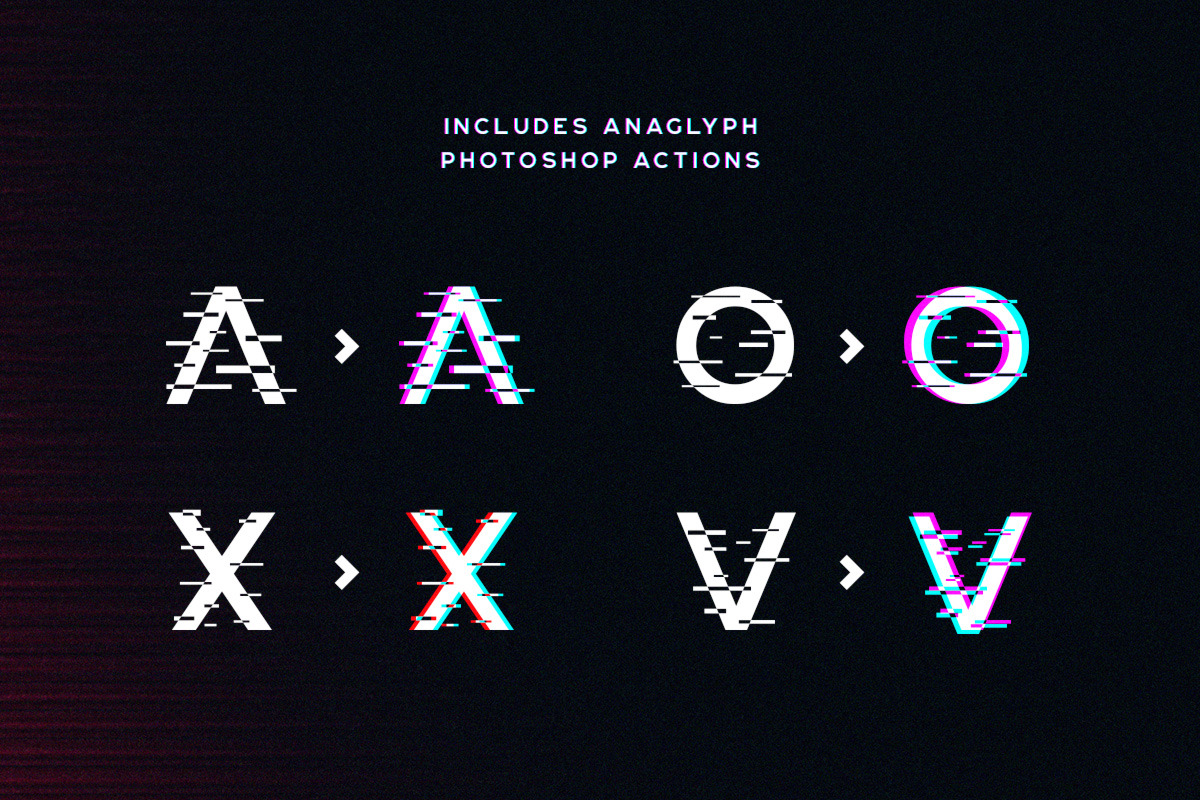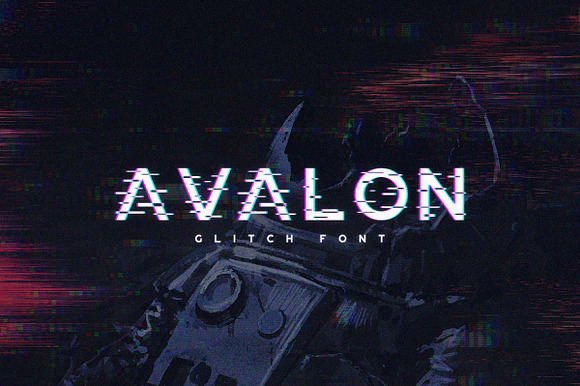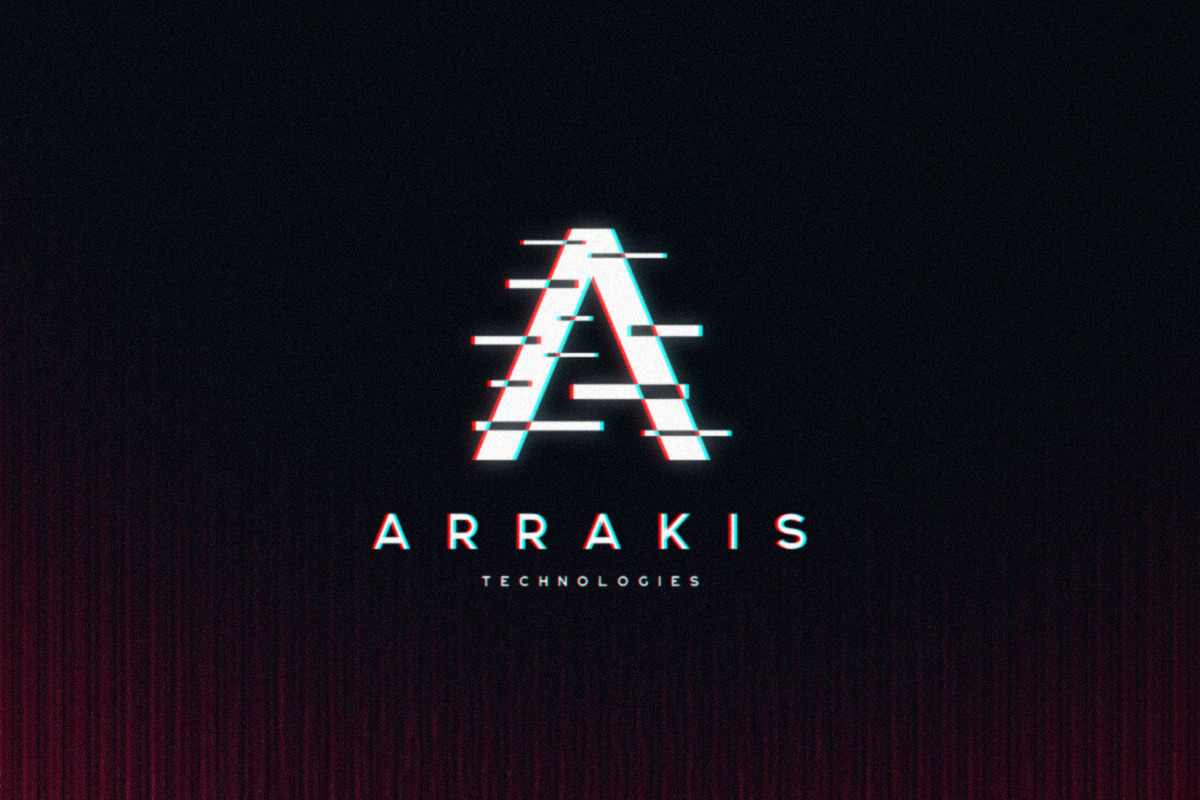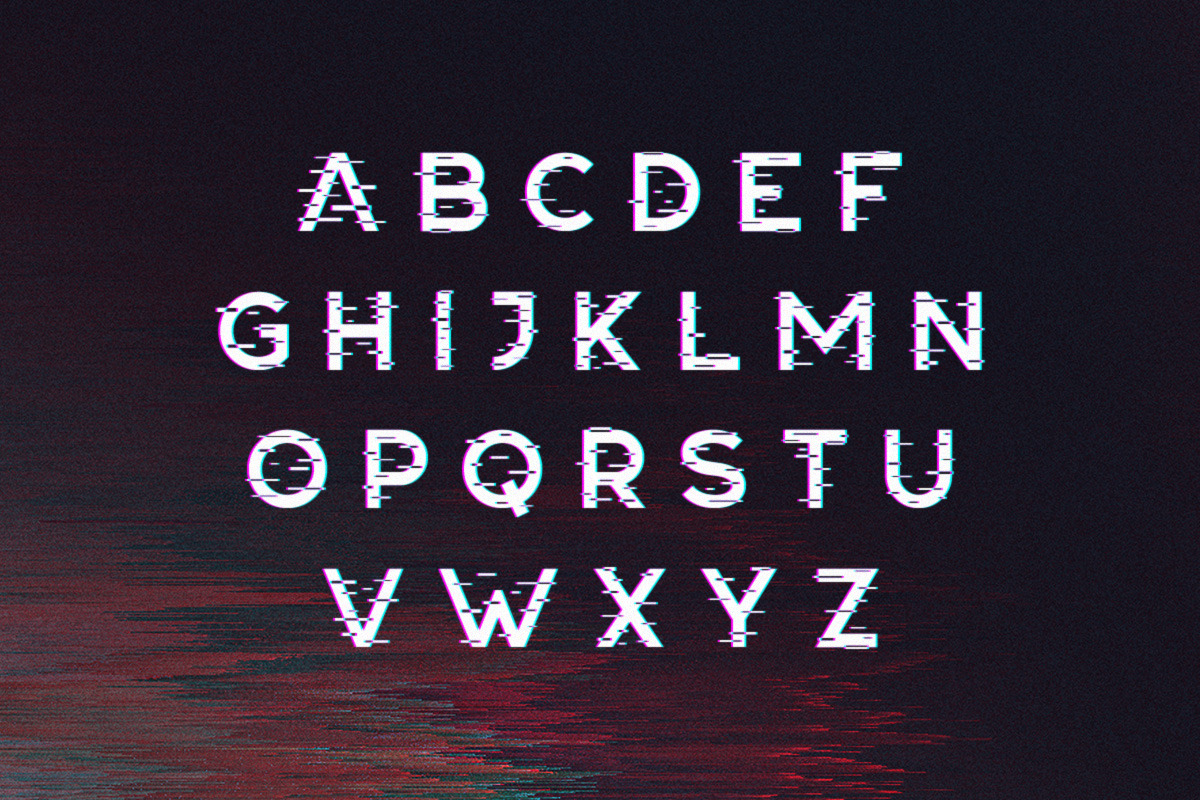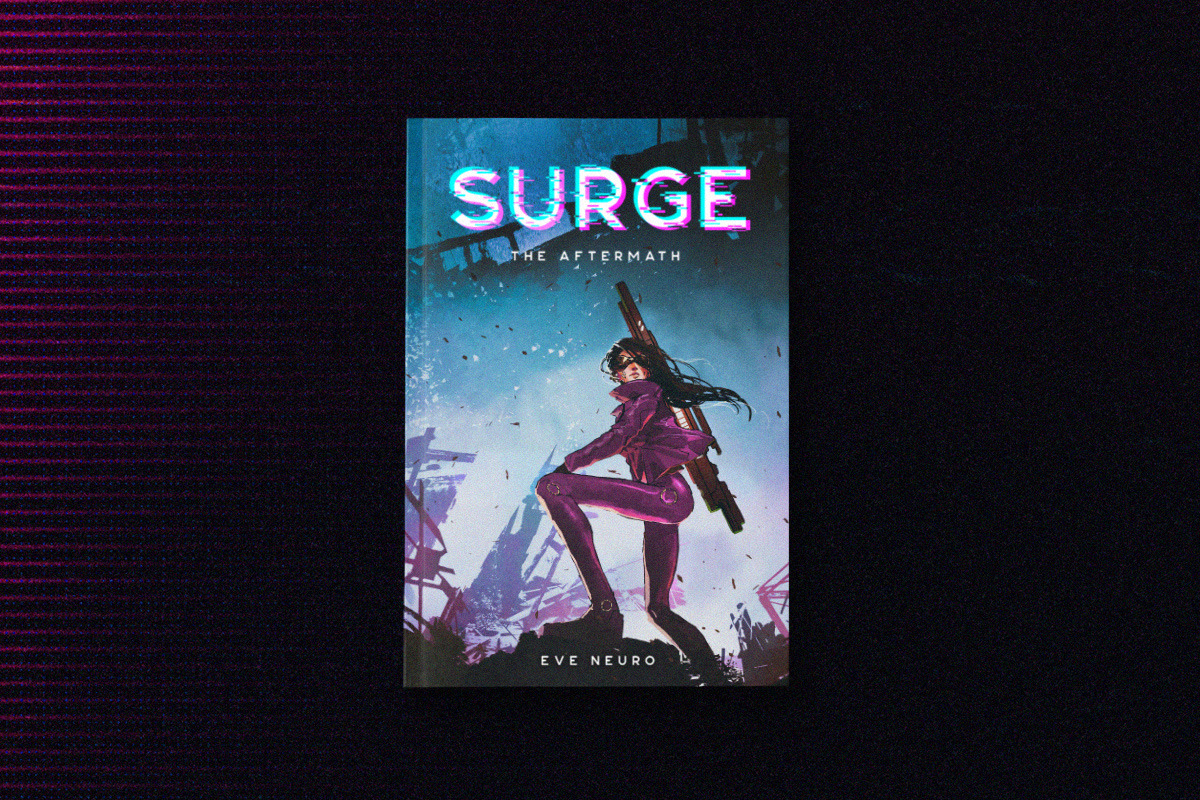
Avalon - Glitch Font
Avalon is a glitch themed font with uppercase multilingual letters, numbers and punctuation. The purchase also includes 5 glitch textures and Photoshop actions to achieve an anaglyph effect identical to the one used on the preview images.
- Avalon is a glitch themed font with uppercase multilingual letters, numbers and punctuation.
Avalon - Glitch Font by Tugcu Design Co. fits naturally into Branding, posters, packaging, typography.